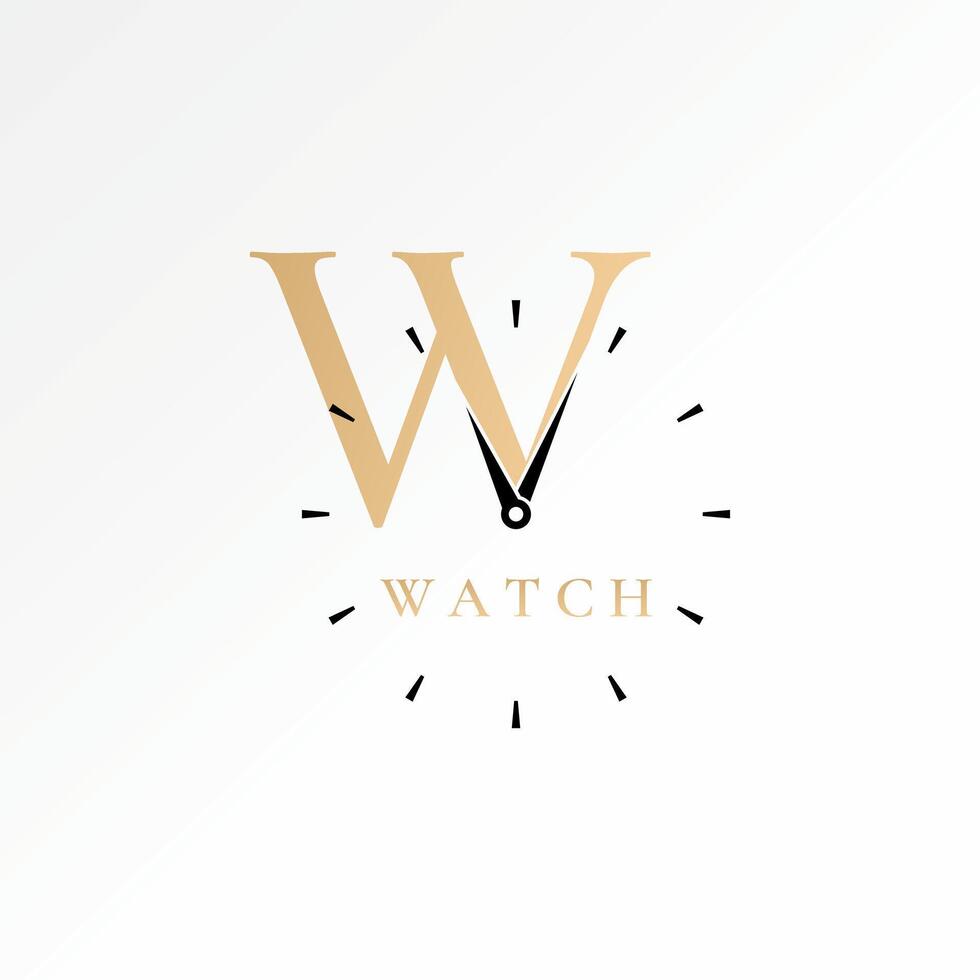
Logo design graphic concept creative premium stock image graphic initial W serif font watch clockwise sync Relate to monogram typography reload Pro Vector